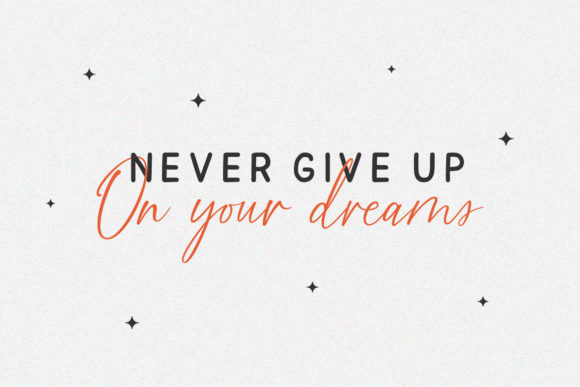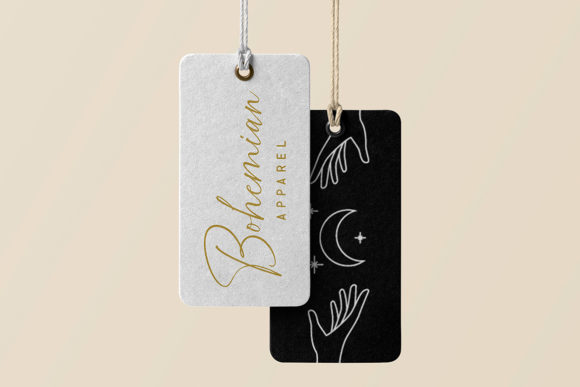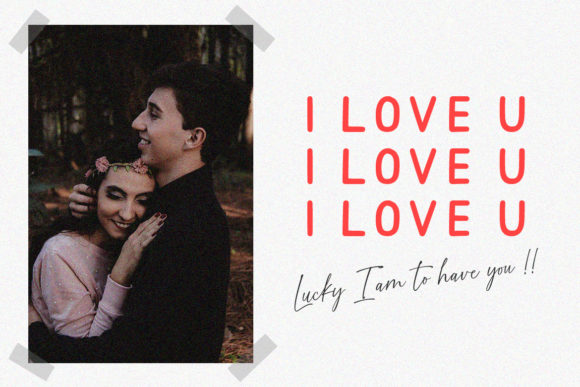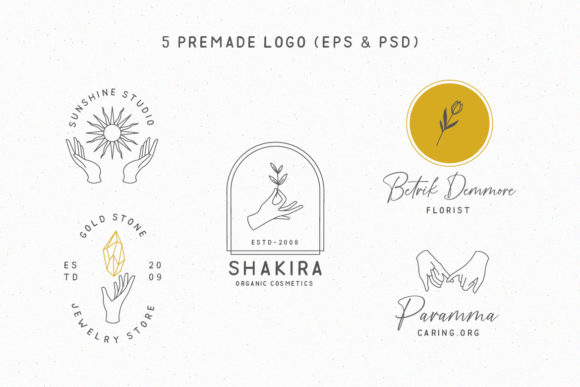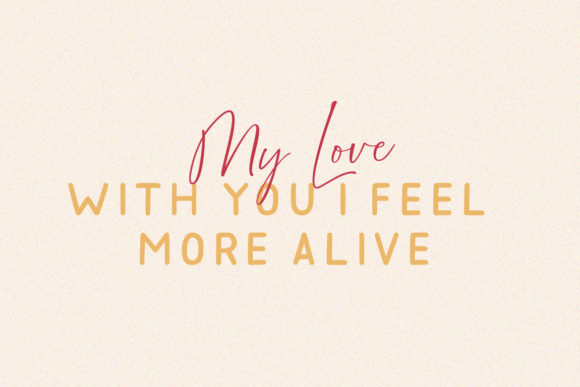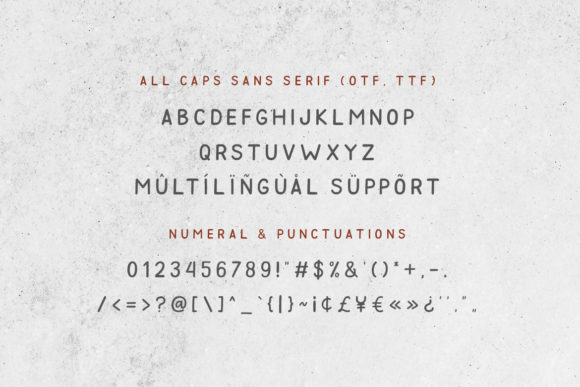
Unlocking the Power of Creative Typography
Have you ever been in the midst of a creative project, staring at a blank page, and suddenly a burst of inspiration strikes? The ideas flow, and your vision begins to take shape. It’s in these moments that the right tools can make all the difference. For designers, finding the perfect font can be a game-changer.
Enter the Golden Dream Duo Font, a dynamic pair of fonts designed to work in harmony. This inspiring and creative duo is perfect for projects that require a touch of elegance and sophistication. Whether you’re designing a brochure, a website, or a logo, the Golden Dream Duo Font is an invaluable asset that will elevate your work to the next level.
Golden Dream Duo Font Key Features
- Font Family: Golden Dream Duo, a unique and elegant script font.
- Unique Characteristics: Features a mix of modern and vintage elements, with intricate details and subtle texture, making it perfect for creating a sense of luxury and sophistication.
Golden Dream Duo Font Review
I recently had the chance to work with the Golden Dream Duo Font, and I must say, it’s a mixed bag. ✨ Here are some things that work well:
- The font’s elegant, dreamy quality is perfect for projects that need a touch of luxury and sophistication.
- The duo font format makes it easy to pair with other fonts and create a visually appealing contrast.
- The font is highly customizable, with a wide range of options for size, color, and spacing.
However, I did encounter some limitations: ⚠️
- The font may not be suitable for projects that require a bold, attention-grabbing font, as it can come across as a bit too delicate.
- The customization options, while numerous, can be overwhelming for beginners.
- The font may not be compatible with all operating systems or devices, which can lead to inconsistent display.
Overall, I’d say the Golden Dream Duo Font is a solid choice for projects that require a touch of elegance and sophistication. While it may not be the best fit for every project, it’s definitely worth considering for the right application.
Getting the Most Out of the Golden Dream Duo Font
For the best results, use the Golden Dream Duo Font in conjunction with a clean and simple design aesthetic. This font is ideal for headings, titles, and short paragraphs. Experiment with different font sizes, colors, and combinations to achieve the desired effect.
The Golden Dream Duo Font is perfect for:
- Event branding and marketing materials
- Magazine and newspaper headlines
Alternatives to Golden Dream Duo Font
Great Vibes Font is a modern script font that works well for titles, headings, and quotes. It’s perfect for designers who want a clean and elegant look. Great Vibes Font is similar to Golden Dream Duo Font in its flowing and cursive style, but it has a more refined and sophisticated feel.
Use Great Vibes Font for: Titles, headings, quotes, and any design that requires a touch of elegance.
Pacifico Font is a beautiful and elegant script font that’s perfect for designers who want to add a touch of sophistication to their designs. It’s similar to Golden Dream Duo Font in its flowing and cursive style, but it has a more relaxed and casual feel.
Use Pacifico Font for: Titles, headings, quotes, and any design that requires a touch of elegance and sophistication.
Carolyna Pro Font is a modern script font that’s perfect for designers who want a clean and elegant look. It’s similar to Golden Dream Duo Font in its flowing and cursive style, but it has a more refined and modern feel.
Use Carolyna Pro Font for: Titles, headings, quotes, and any design that requires a clean and modern look.
Dancing Script Font is a beautiful and elegant script font that’s perfect for designers who want to add a touch of sophistication to their designs. It’s similar to Golden Dream Duo Font in its flowing and cursive style, but it has a more playful and dynamic feel.